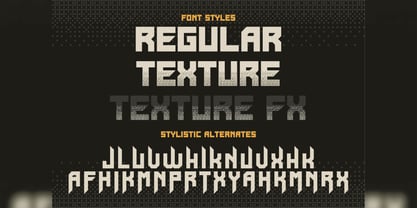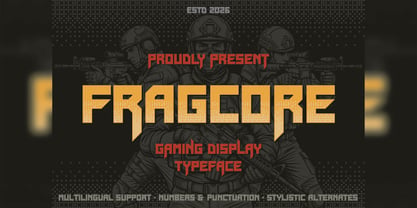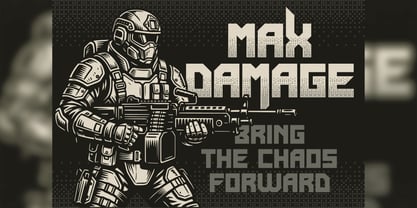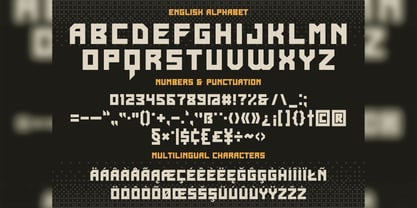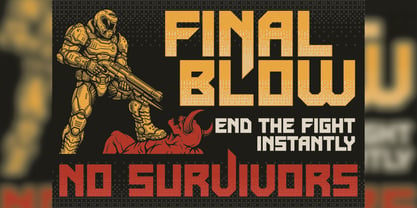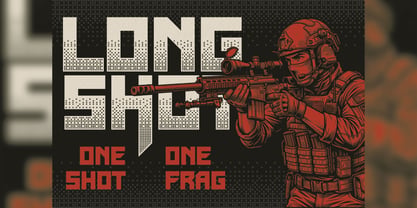
Fragcore
The Fragcore Font Family was designed by Oleg Voznyy and published by Vozzy. Fragcore contains 3 styles and family package options. More about this family
Introducing "Fragcore," a distinctive font designed specifically for headlines and accent inscriptions that demand attention. This versatile typeface features a rich collection of additional characters, punctuation marks, and multilingual options, ensuring it meets diverse design needs. With a wide array of alternate characters, be sure your software supports this OpenType feature for optimal use. "Fragcore" is perfect for enhancing your creative projects, making it an excellent choice for branding, web design, and editorial layouts. Elevate your designs with the striking presence of "Fragcore!"